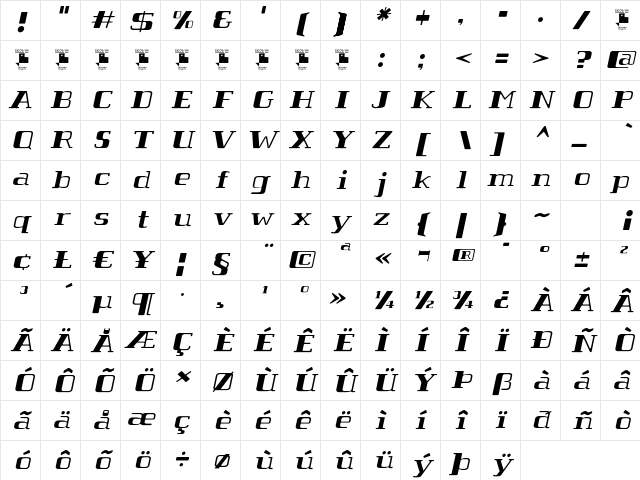
Tabaiba wild ffp Italic
Foundry: deFharo
Designer: deFharo
Design Context for Tabaiba wild ffp
Tabaiba wild ffp is a composed and adaptable typeface that performs quietly and consistently across a wide range of design contexts. The slanted form adds forward momentum and visual energy.
Pro Tip: Use Tabaiba wild ffp for emphasis, pull quotes, and subheadings where its slanted energy can add rhythm to the layout.